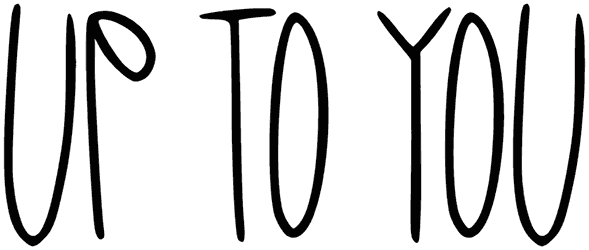
Up To You Font
Up To You is for you if you are looking for a minimal aesthetic along with an organic space. This doodle font has long, narrow lines that give it a cartoon look. By implementing your ideas in a different format without small letters, you can defeat your competitors because of the neat and geometric appearance of this handwritten font. Don’t hesitate to download this font if you want a contemporary twist on your invitation card, mobile phone cover, or t-shirt.
UP TO YOU